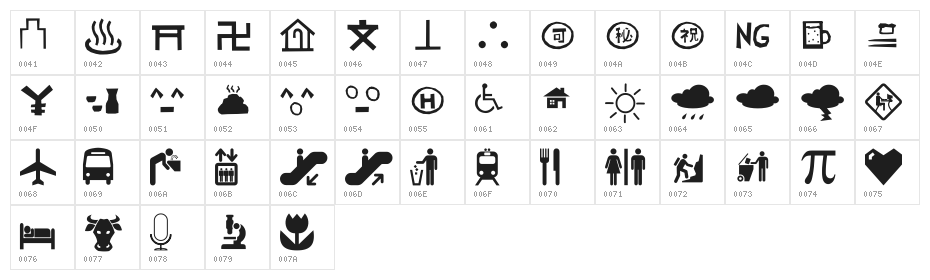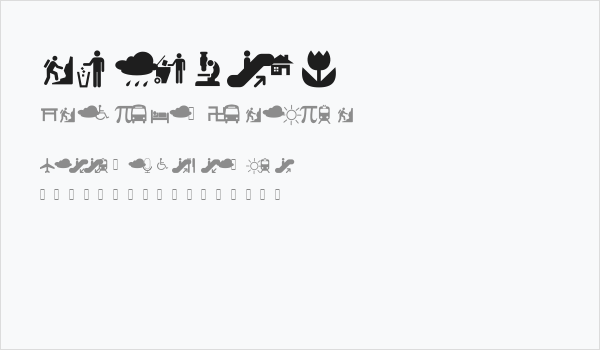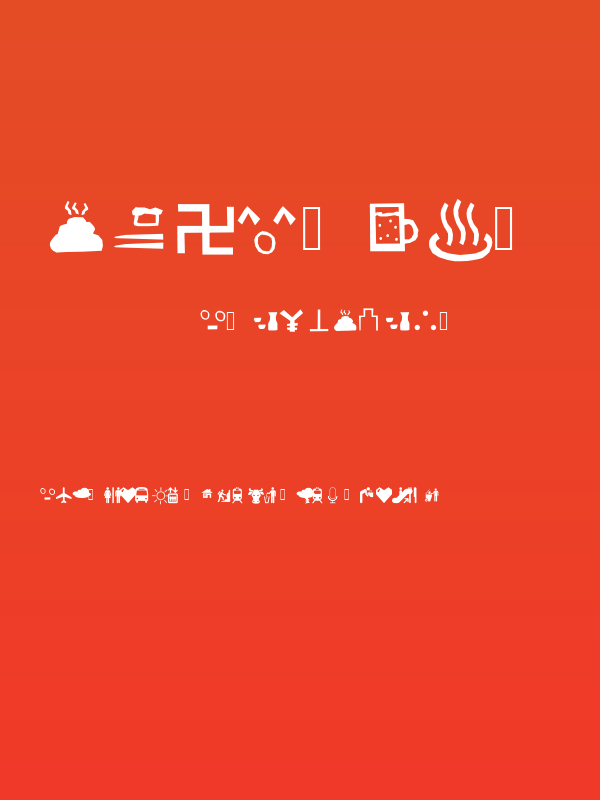
rndsymbz Font
rndsymbz Description
A pictogram and symbol-based font featuring a variety of icons including buildings, transportation, accessibility, weather, people, and miscellaneous signage. The glyphs are bold, simple, and highly legible, designed for quick visual recognition rather than textual reading.
| Overall Style | Modern, Functional, Iconographic |
| Use Case | Signage, Infographics, Maps, User Interfaces |
| Proposed Projects | Wayfinding systems, public signage, infographics, maps, instructional materials, and user interfaces. |